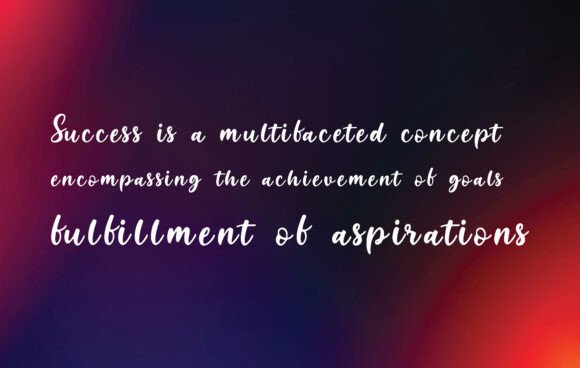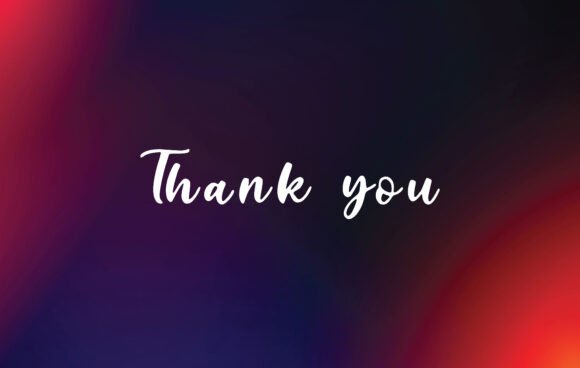
Unleash Your Creativity with Fritillary Font
Have you ever stared at a blank canvas, struggling to find the perfect words to express your vision? It’s a feeling we’ve all been through, but what if I told you there’s a way to break through that creative block and bring your ideas to life? Enter the Fritillary Font, a stunning handwritten font that’s about to revolutionize the way you design.
This beautiful font is not just a pretty face – it’s a powerful tool designed to elevate your branding, logos, and quotes to the next level. With its unique, elegant style, Fritillary Font is the perfect choice for designers looking to add a touch of sophistication to their work. Whether you’re a seasoned pro or just starting out, this font is sure to inspire your creativity and take your designs to new heights.
- Unique Characteristic: Unique blend of modern and traditional design elements, making it suitable for a wide range of applications
- Font Style: Script, Display, and Serif styles available
- Unique design: Fritillary Font has a distinct, hand-crafted feel that sets it apart from more common fonts.
- Good for display use: The font’s bold lines and quirky flair make it perfect for headings and titles.
- Supports a wide range of languages: Fritillary Font includes a comprehensive character set, making it suitable for global projects.
Limitations: ⚠️
- Readability issues: In smaller sizes, the font can become difficult to read due to its complex lines and letterforms.
- Lack of consistency: Some characters, like the ‘a’ and ‘g’, have slightly different forms, which can be jarring.
- Not ideal for body text: The font’s unique style can be overwhelming when used extensively, making it better suited for accent use.
Overall, I’d say Fritillary Font is a great choice for projects where you want to add a touch of whimsy and personality. Just be mindful of its limitations and use it judiciously to avoid overwhelming your audience.
Use Fritillary Font for elegant and sophisticated designs, such as:
– Wedding invitations and stationery
– Luxury brand logos and marketing materials
– High-end product packaging and labels
For optimal results, use Fritillary Font in combination with other elegant and sophisticated design elements, such as cursive scripts and ornate patterns.